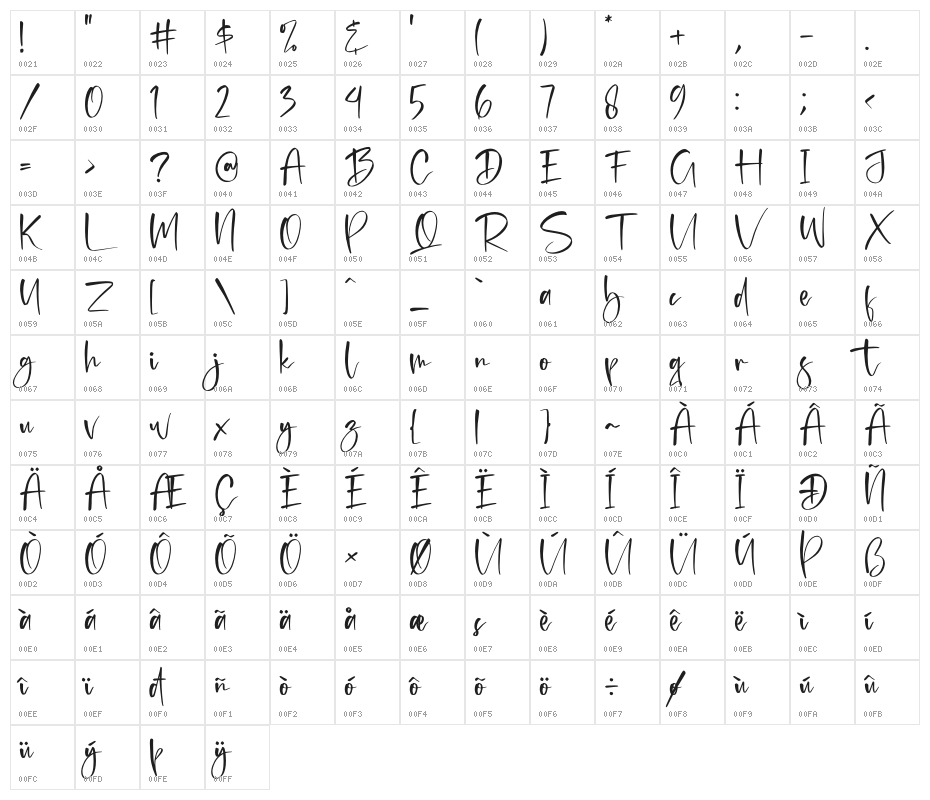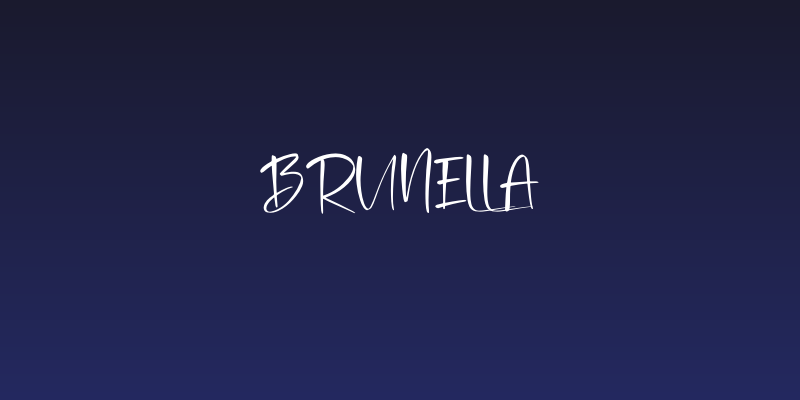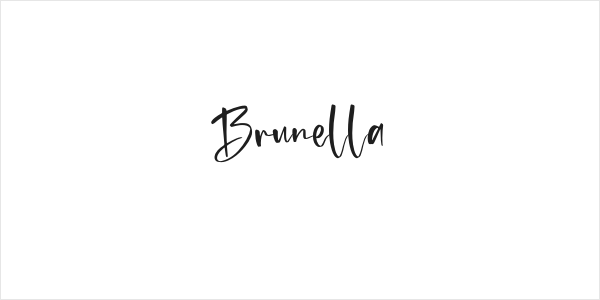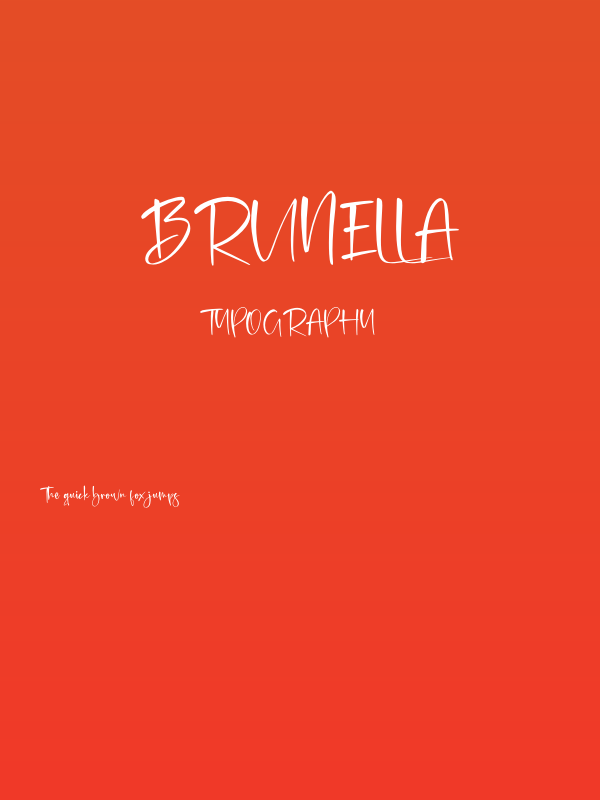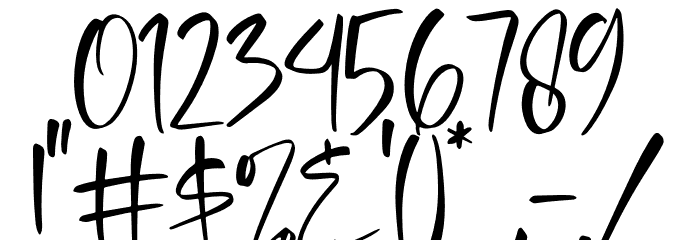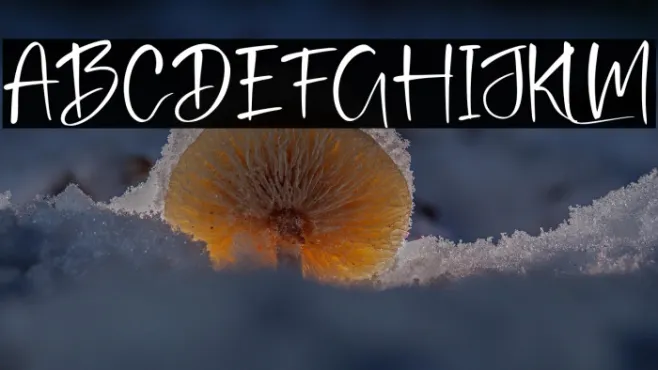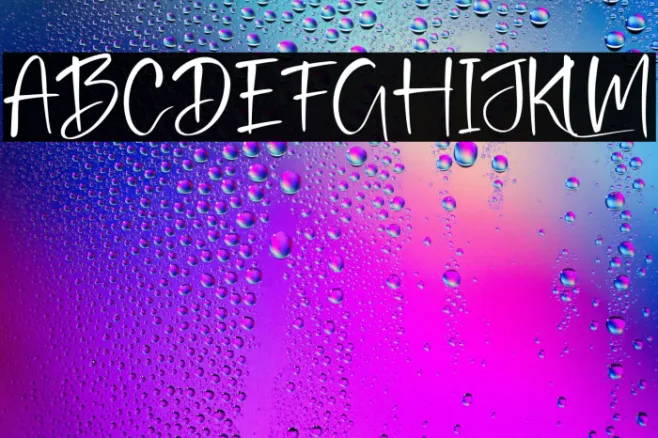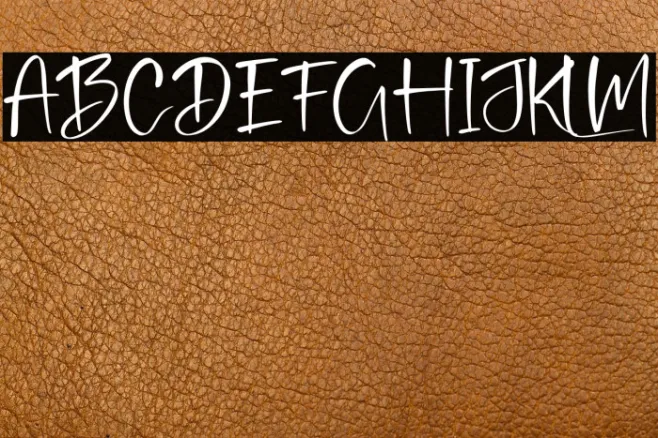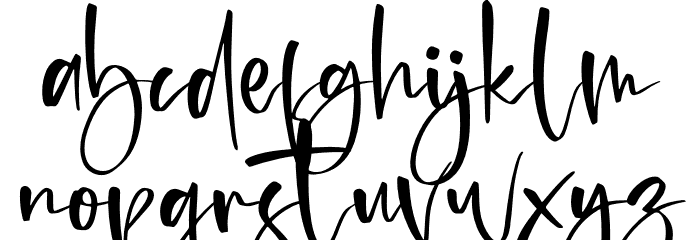
Brunella Font
Brunella Description
This font exudes a lively and expressive character, combining elements of both script and handwritten styles. The uppercase letters are bold and dynamic, with a playful, flowing quality that adds a sense of movement. The lowercase letters maintain this fluidity, with some characters featuring unique loops and swirls that enhance the font's artistic appeal. Numbers and special characters are crafted with the same attention to detail, ensuring consistency throughout. The overall design is modern and stylish, making it suitable for projects that require a personal touch or a creative flair.